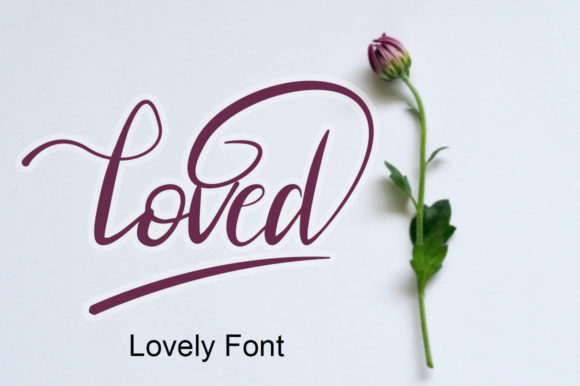
Welcome to the world of Loved Font, a captivating script font designed to ignite the flame of creativity within you. Loved Font is not just a font; it's an expression of passion and elegance, a perfect match for your creative endeavors.
Loved Font's alluring curves and delicate strokes add a touch of sophistication to your designs, making them stand out from the crowd. Its timeless beauty transcends trends, ensuring that your creations remain captivating for years to come.
Whether you're a seasoned designer or just starting your creative journey, Loved Font is your perfect companion. Its versatility knows no bounds, making it suitable for a myriad of projects. Create stunning wedding invitations that capture the essence of love, design eye-catching social media posts that leave a lasting impression, or craft beautiful stationary art that exudes elegance.
With Loved Font, the possibilities are endless. Let your imagination soar as you explore the realm of creativity, crafting designs that resonate with your audience. Loved Font is more than just a font; it's an experience, a journey into the heart of artistic expression.